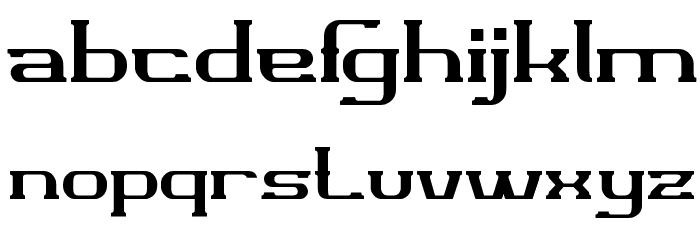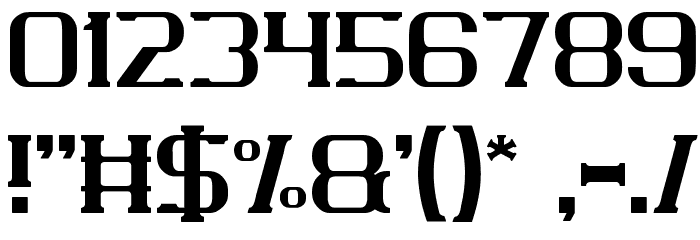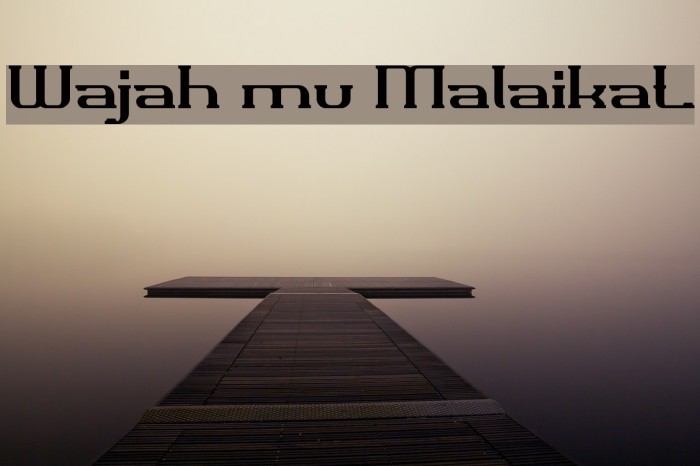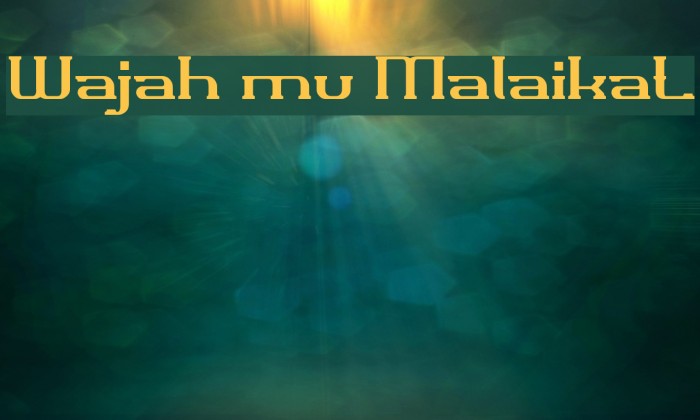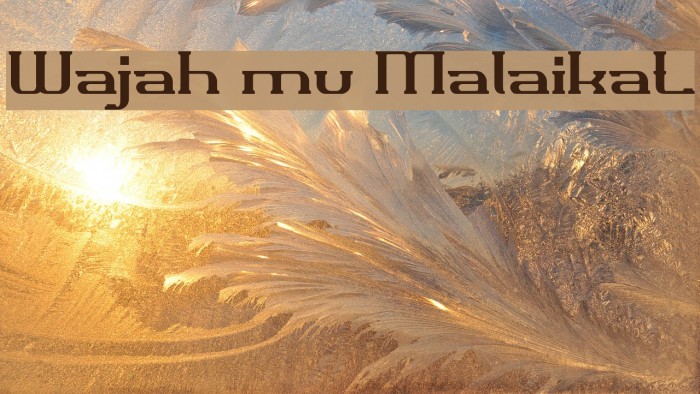
Wajah mu Malaikat Font
This font features a bold and structured design with a modern twist. The uppercase letters are characterized by strong, angular lines and a geometric feel, while the lowercase letters maintain a similar structure with slightly softer edges. The numerals are consistent with the overall style, offering a bold presence. Special characters are distinct and maintain the font's unique aesthetic. The font's design is both eye-catching and versatile, making it suitable for a variety of applications.
A bold, modern font with geometric and angular characteristics.
- Proposed Projects: Ideal for branding, headlines, posters, and modern graphic design projects.